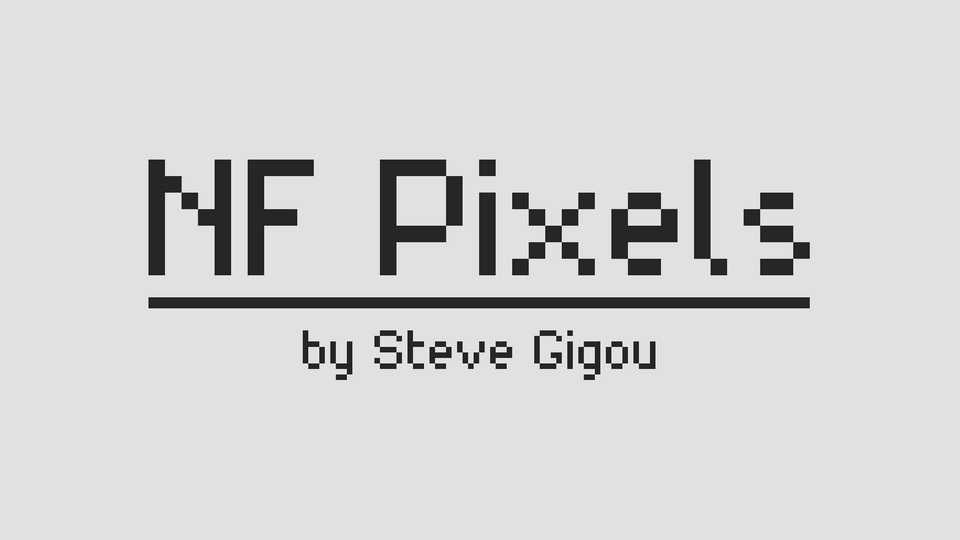
Downlod NF Pixels font, a pixel typeface focused on minimalism, originally created to be used in a pixel-art game. NF Pixels has a simple design makes it very readable even at small sizes.
Designer: Steve Gigou